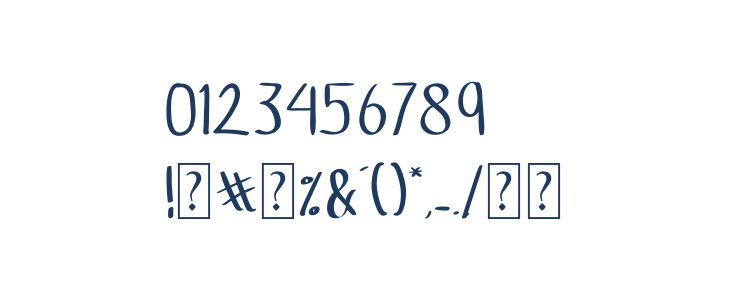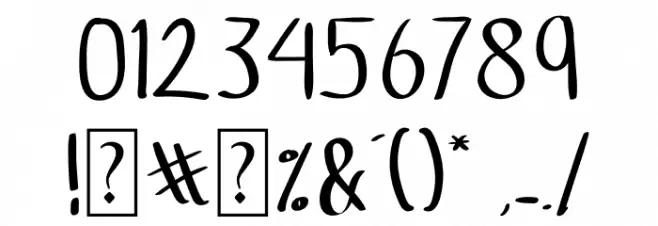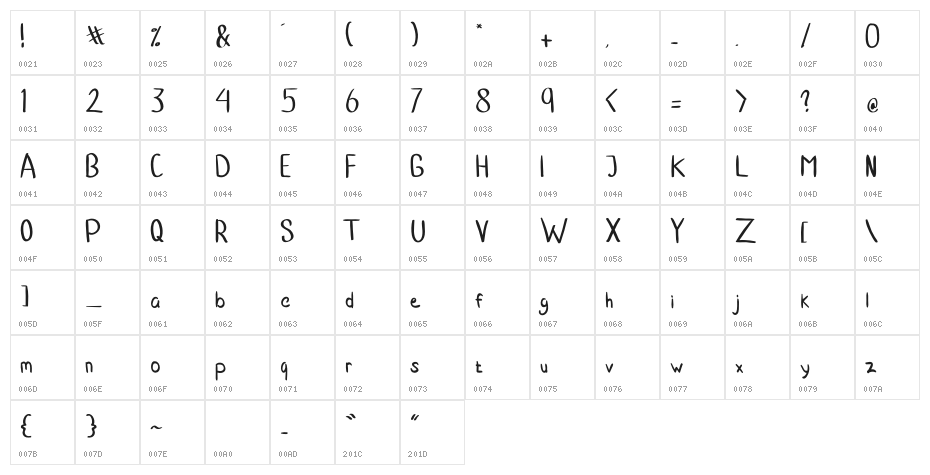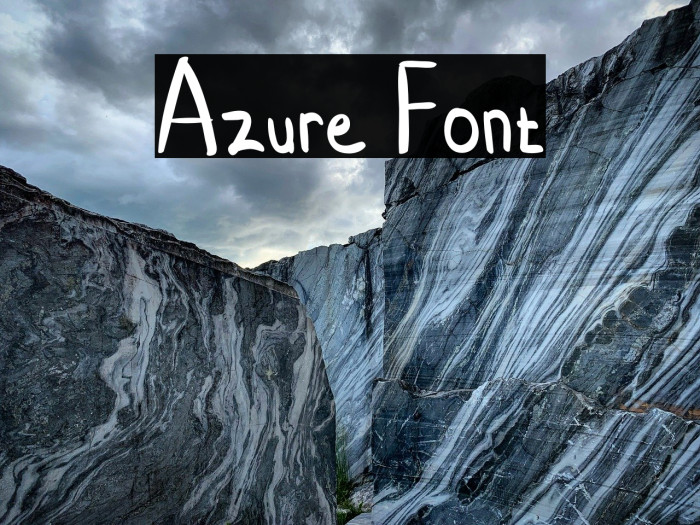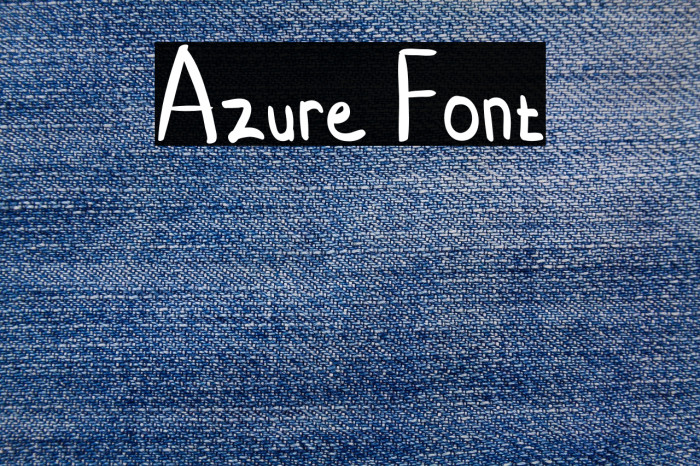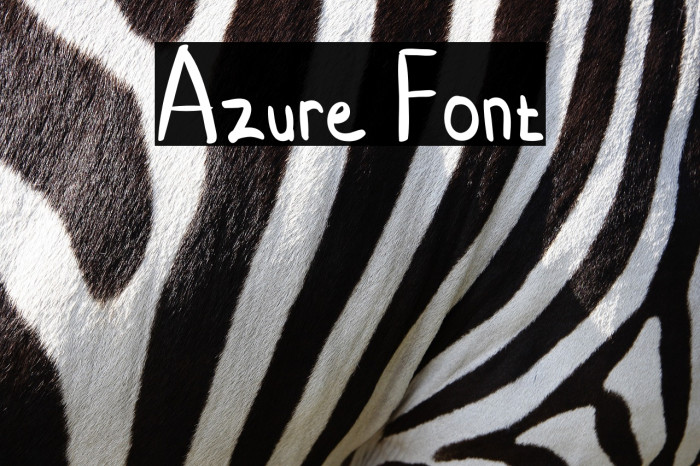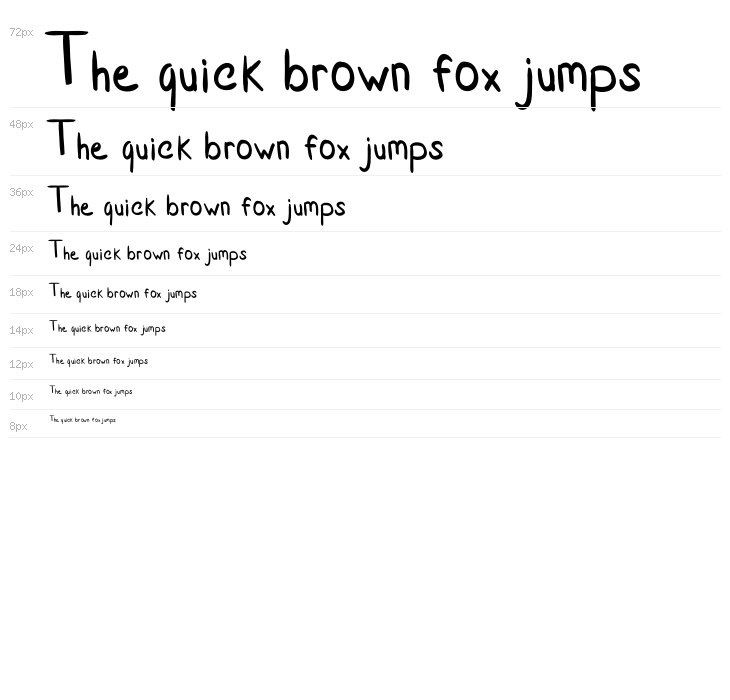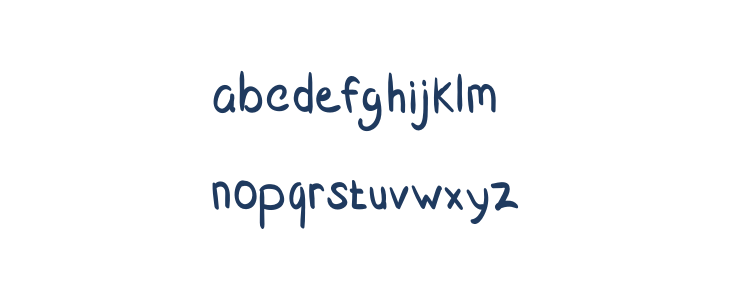
Azure Font
Azure Description
This font features a playful and informal handwritten style, characterized by its rounded and slightly irregular letterforms. The uppercase and lowercase letters maintain a consistent flow, giving it a casual and friendly appearance. The numbers and special characters follow the same whimsical design, making it suitable for creative and informal projects. The strokes are moderately thick, providing good readability while retaining a relaxed aesthetic. This font is ideal for projects that require a personal touch, such as greeting cards, invitations, or children's book covers.
| Proposed Projects | Greeting cards, invitations, children's book covers, casual branding. |